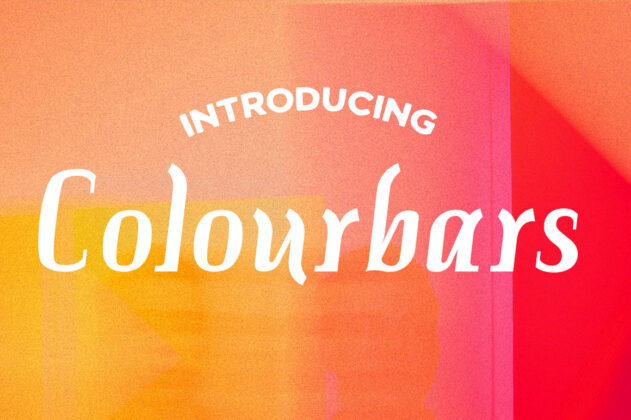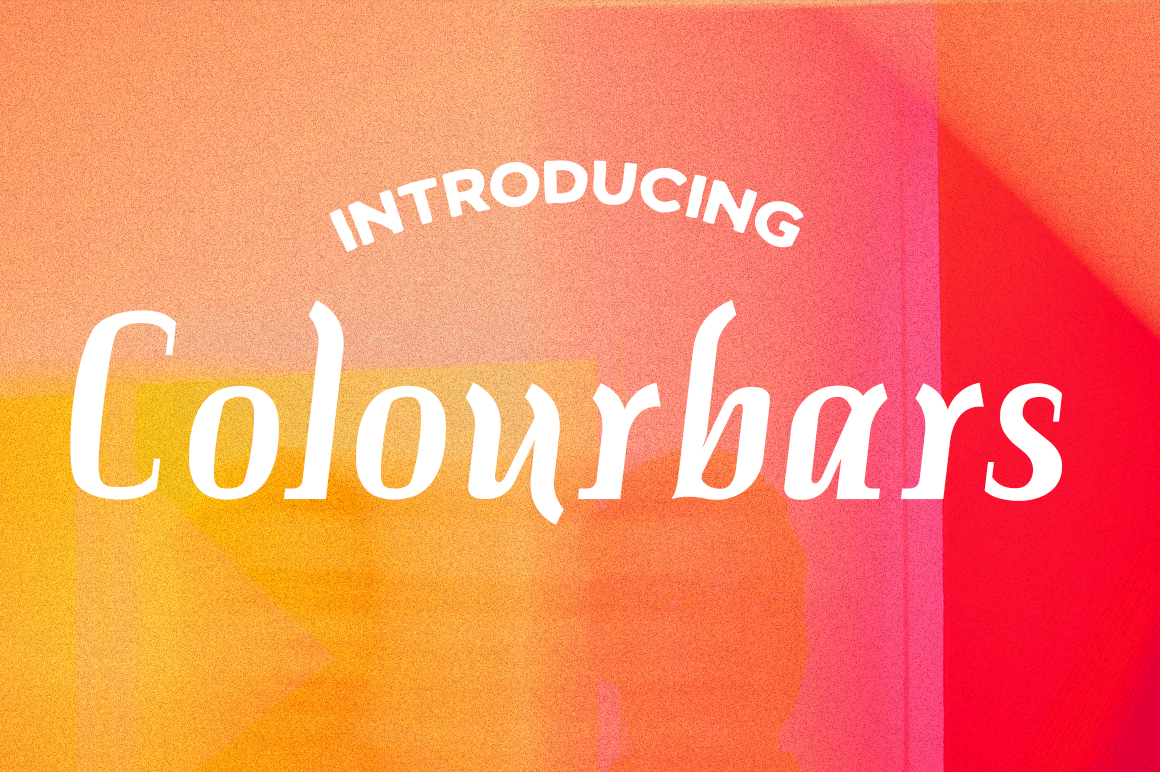
HomePersonal Use FreeColourbars Personal Use Free Colourbars FacebookXPinterestWhatsApp 1 of 1 About Colourbars Font Colourbars is a beautiful and classic italic serif font, swoopy with a charming slant. This decorative script is a free font from Typodermic, and can be used for body and display texts. DOWNLOAD ON CREATIVE FABRICAThis font is sold and delivered by Creative Fabrica. Font Canyon may earn a commission if you buy through this link. People also explored Country Berries Font Houster Font Cheeks Font Bristol Font Semi Pixel Font Floral Font Poignant Underlord Font Tundra Font 514 0 TagsColourbars Font Previous articlePo BeefNext articleCranberry Gin LEAVE A REPLY Cancel reply Comment: Please enter your comment! Name:* Please enter your name here Email:* You have entered an incorrect email address! Please enter your email address here Website: Save my name, email, and website in this browser for the next time I comment. Personal Use Free Mustica Personal Use Free Read more about this font Salmoni Personal Use Free Read more about this font Deco Neue Wilde Personal Use Free Read more about this font Fifty Five Personal Use Free Read more about this font BLOG 5 Fonts That Will Dominate Design Trends in 2026 5 Fonts for 2026 That Will Dominate Design Trends Typography plays a critical role in visual communication, and as we look ahead to 2026, it’s... How to Install and Use Fonts on Windows, macOS, and Web Projects Using Fonts in Digital Marketing: Tips to Strengthen Your Brand Identity Where to Buy American Fonts Online in 2024